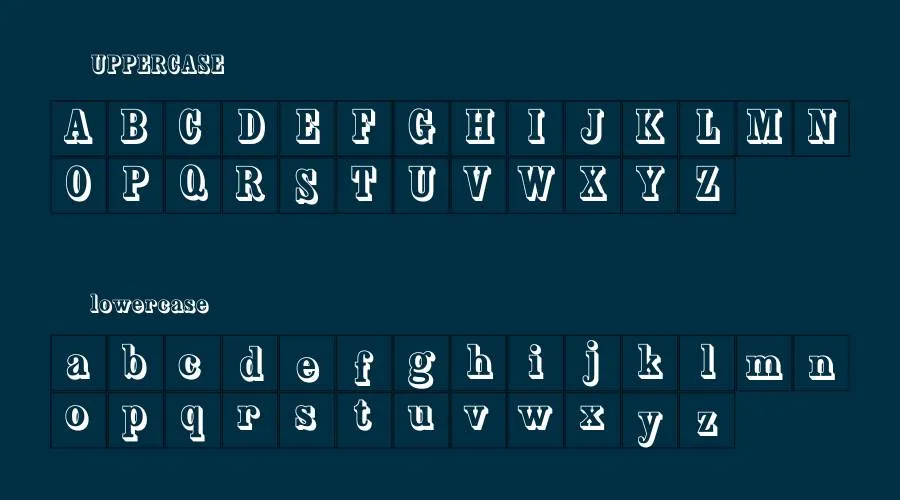
Country Western Open Font
About Country Western Open Font
Michael Hagemann designed Country Western Open Font it is a fancy typeface. This amazing typeface was created for a variety of applications and uses.
Its textures are sleek and organized. Numerous other applications, like Adobe Illustrator, Canva, and InDesign, also utilize this pleasant typeface. Its copy-and-paste feature is well known. It supports nearly 67 different languages around the world.